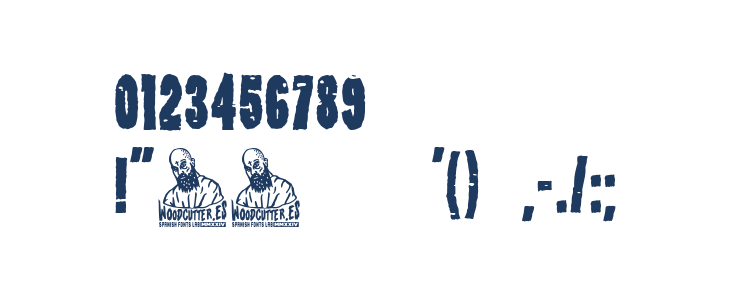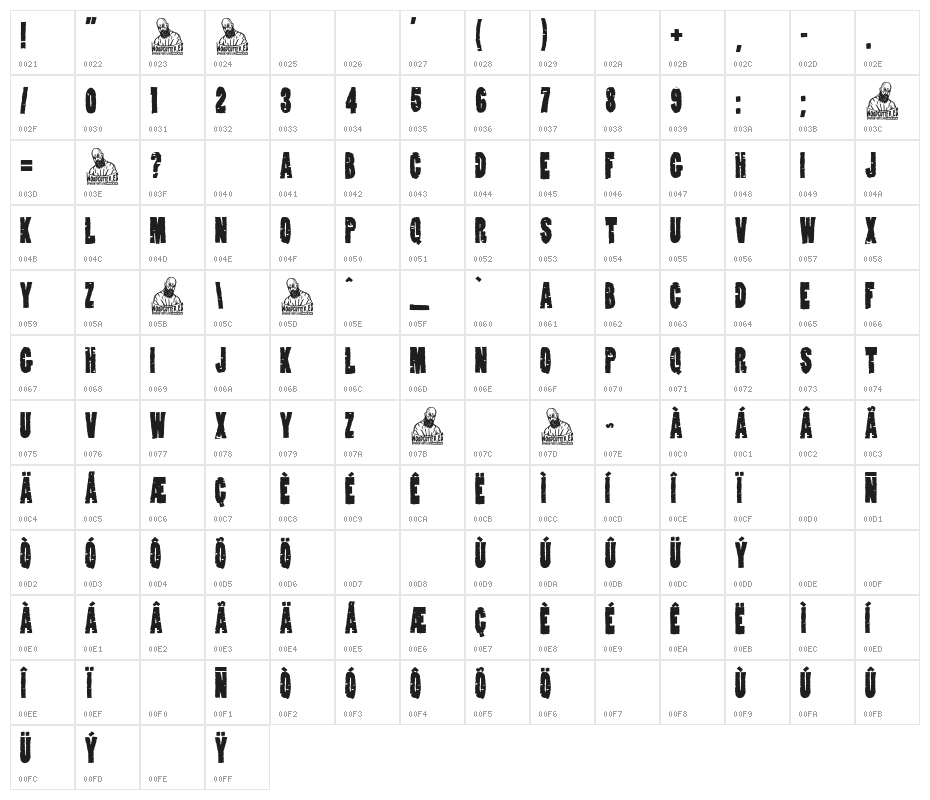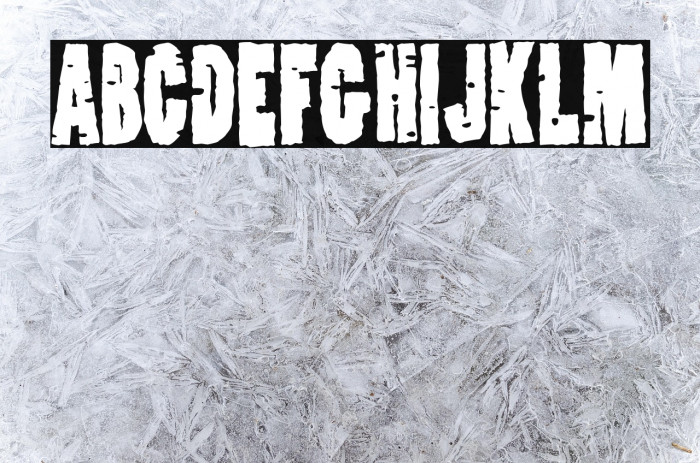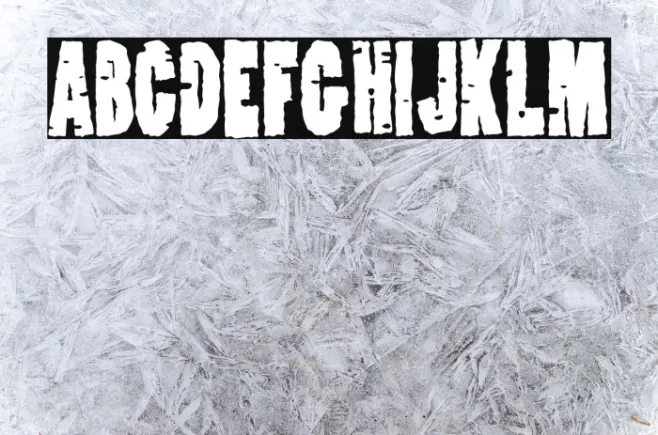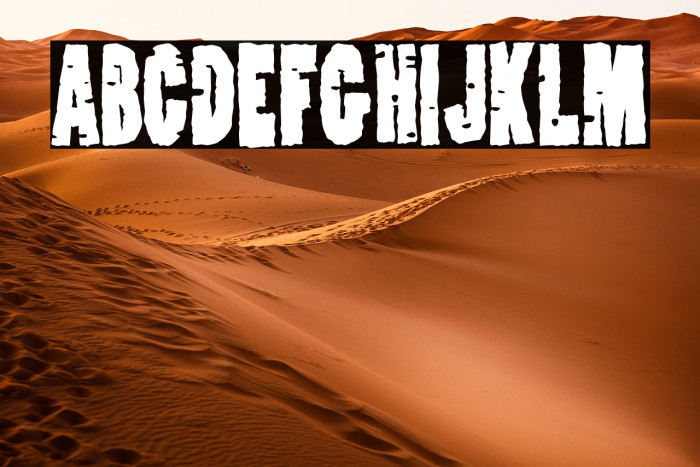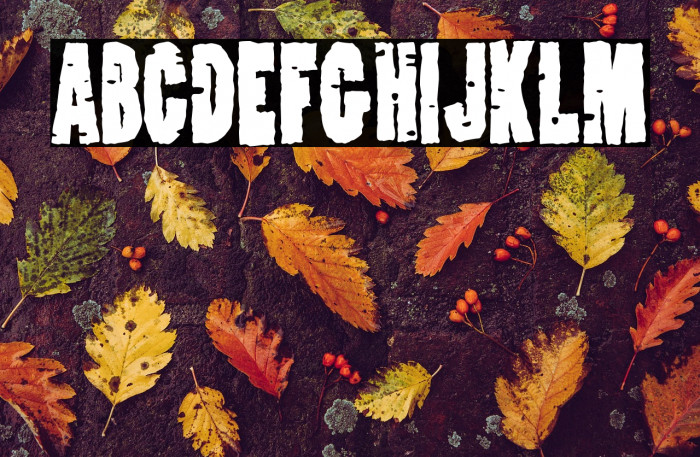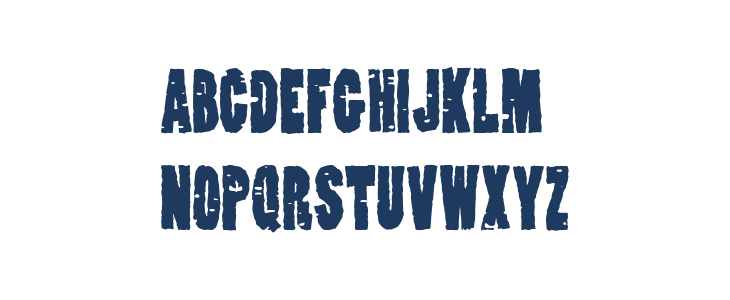
Cristales Rotos Font
Cristales Rotos Description
This font features a rugged, distressed appearance reminiscent of shattered glass or worn surfaces. The characters are bold and impactful, with irregular edges and a textured look that adds a sense of chaos and dynamism. The uppercase and lowercase letters maintain a consistent style, while the numbers and special characters follow the same distressed theme. The overall design is eye-catching and suitable for projects that require a strong, edgy aesthetic.
Proposed ProjectsIdeal for album covers, posters, urban-themed designs, or any project needing a gritty, impactful look.